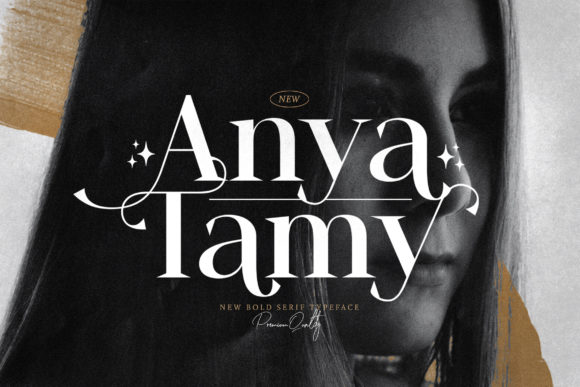
Anya Tamy Font: Elevate Your Designs with Elegance and Boldness
Are you a designer or crafter looking for a font that exudes elegance and boldness? Look no further than the Anya Tamy font. This stunning serif font is perfect for a wide range of applications, from logos and wedding invitations to headings, t-shirts, and more. In this article, we’ll dive into the world of Anya Tamy font, exploring its features, uses, and benefits.
What is Anya Tamy Font?
Anya Tamy is a bold and elegant serif font that is sure to make a statement. Its classic design and modern twist make it a versatile choice for any design project. The font features beautiful serifs, elegant lines, and a sophisticated feel that is perfect for creating high-end designs.
Key Features of Anya Tamy Font
- Bold and Elegant: Anya Tamy font is designed to make a statement. Its bold and elegant design makes it perfect for creating eye-catching headlines, logos, and titles.
- Serif Font: The font features beautiful serifs that add a touch of sophistication and elegance to any design.
- Versatile: Anya Tamy font can be used for a wide range of applications, from logos and wedding invitations to headings, t-shirts, and more.
- Easy to Read: Despite its bold design, Anya Tamy font is easy to read, making it perfect for body text and captions.
Uses of Anya Tamy Font
Anya Tamy font is perfect for a wide range of design projects, including:
- Logos: Create a bold and elegant logo that makes a statement.
- Wedding Invitations: Add a touch of sophistication and elegance to your wedding invitations.
- Headings: Create eye-catching headings that grab attention.
- T-Shirts: Design stunning t-shirts that make a statement.
- Letterhead: Elevate your letterhead with a bold and elegant font.
- Signage: Create eye-catching signage that grabs attention.
- Labels: Design stunning labels that add a touch of sophistication to any product.
- News: Use Anya Tamy font to create bold and elegant news headlines.
- Posters: Design stunning posters that make a statement.
- Badges: Create eye-catching badges that add a touch of elegance to any design.
Benefits of Using Anya Tamy Font
Using Anya Tamy font offers a range of benefits, including:
- Unique Design: Anya Tamy font features a unique design that sets it apart from other fonts.
- Versatility: The font can be used for a wide range of applications, making it a great addition to any designer’s toolkit.
- Elegance: Anya Tamy font exudes elegance and sophistication, making it perfect for high-end designs.
In conclusion, Anya Tamy font is a bold and elegant serif font that is perfect for a wide range of design projects. Its unique design, versatility, and elegance make it a great addition to any designer’s toolkit. Whether you’re creating logos, wedding invitations, headings, or more, Anya Tamy font is sure to elevate your designs and make a statement.